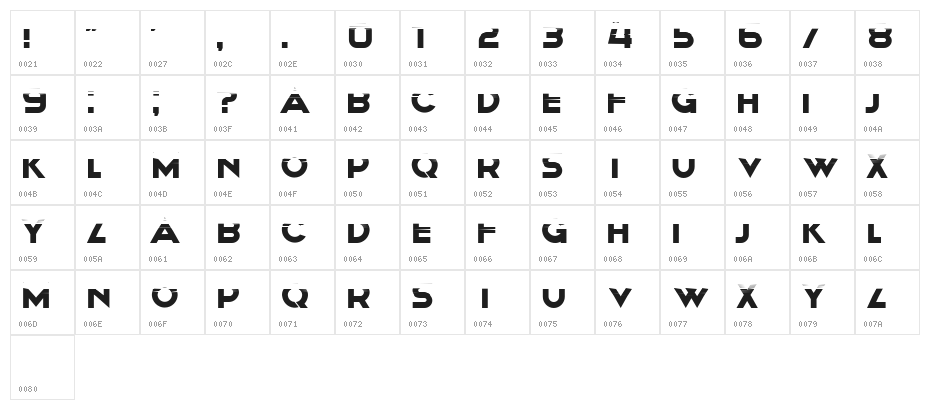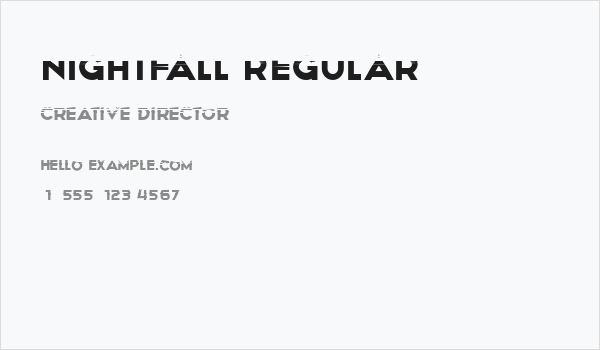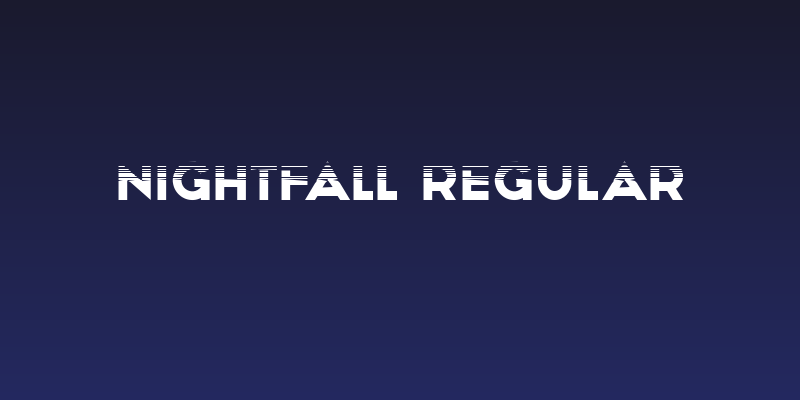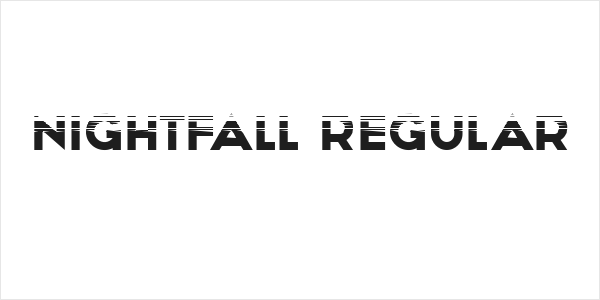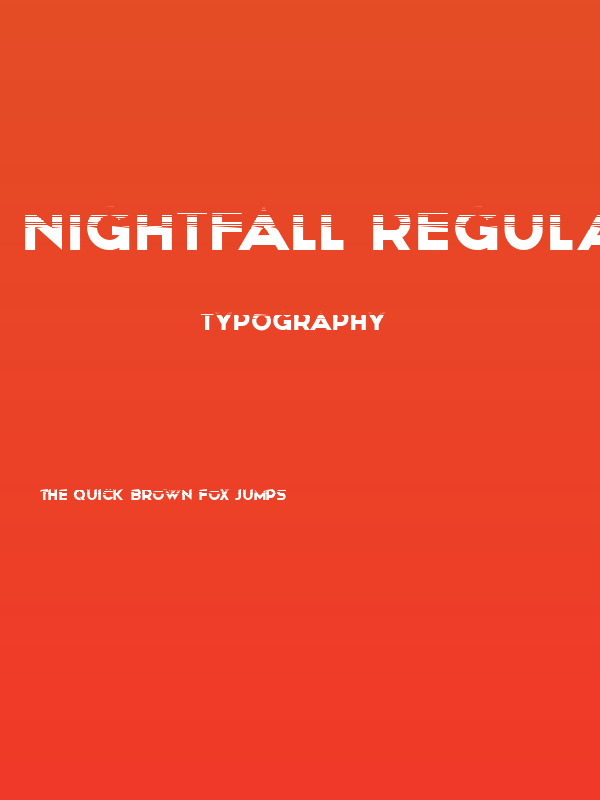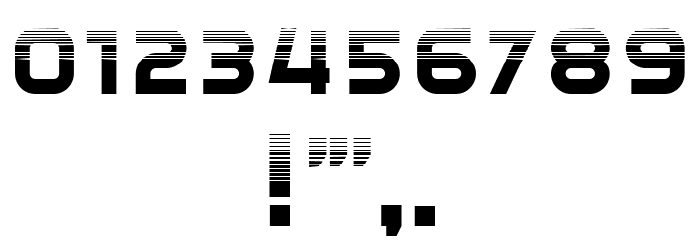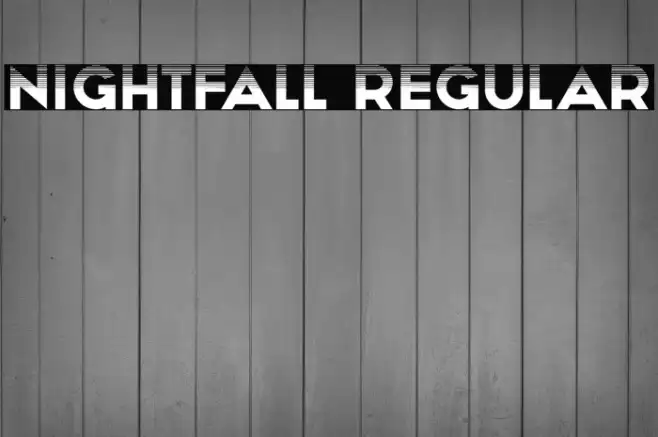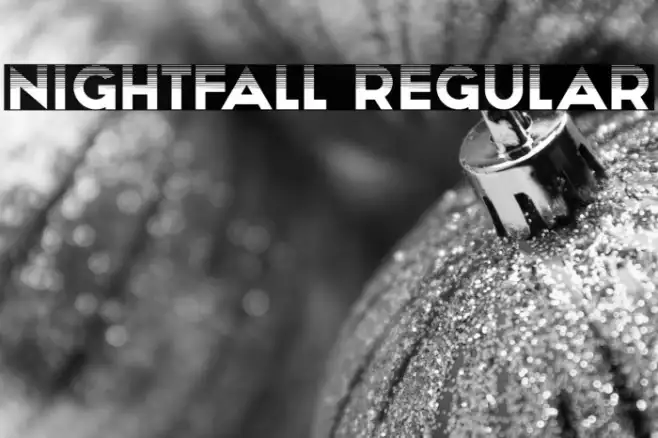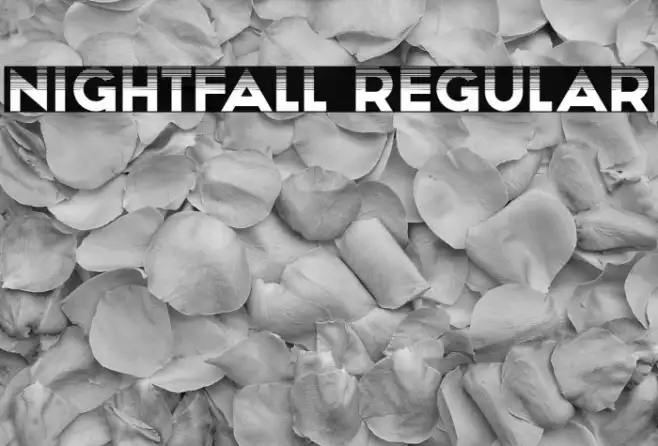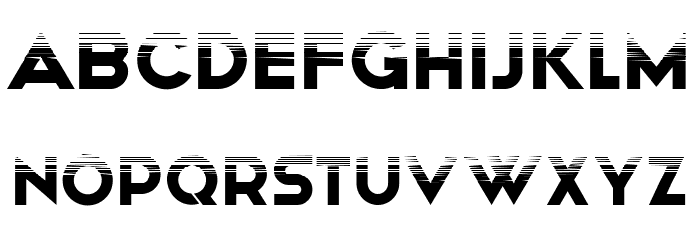
Nightfall Regular Font
Nightfall Regular Description
This font features a bold and modern design with a unique striped pattern across each character, giving it a dynamic and futuristic appearance. The uppercase and lowercase letters maintain a consistent geometric structure, while the numbers and special characters follow the same stylistic approach. The horizontal lines create a sense of movement and energy, making it stand out in any design. The overall look is clean yet striking, suitable for projects that require a contemporary and edgy feel.
| Proposed Projects | Ideal for branding, posters, album covers, and digital media that require a modern and energetic look. |